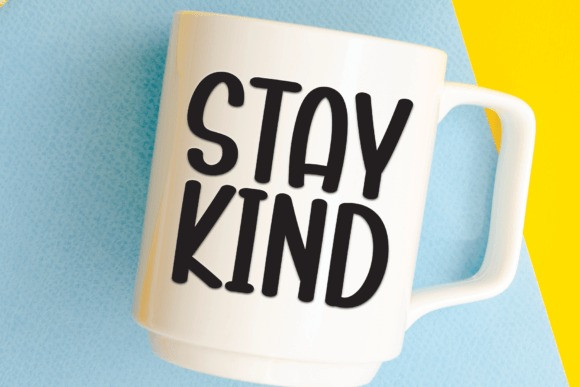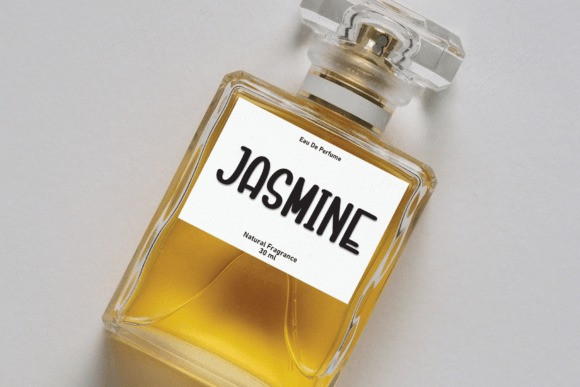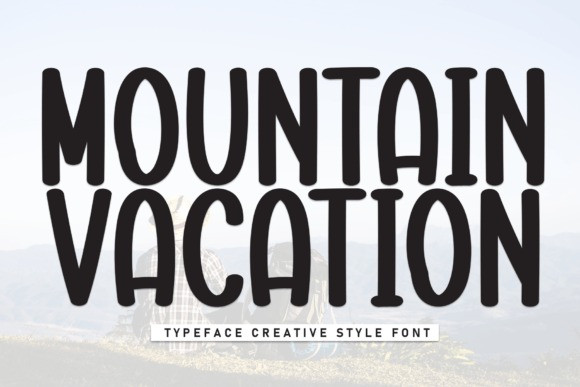
Mountain Vacation Font
Mountain Vacation Font is a sweet and friendly handwritten font. Cute yet versatile, this font is ideal for writing wedding invitations, cards, or any other design that might need a lovely touch!